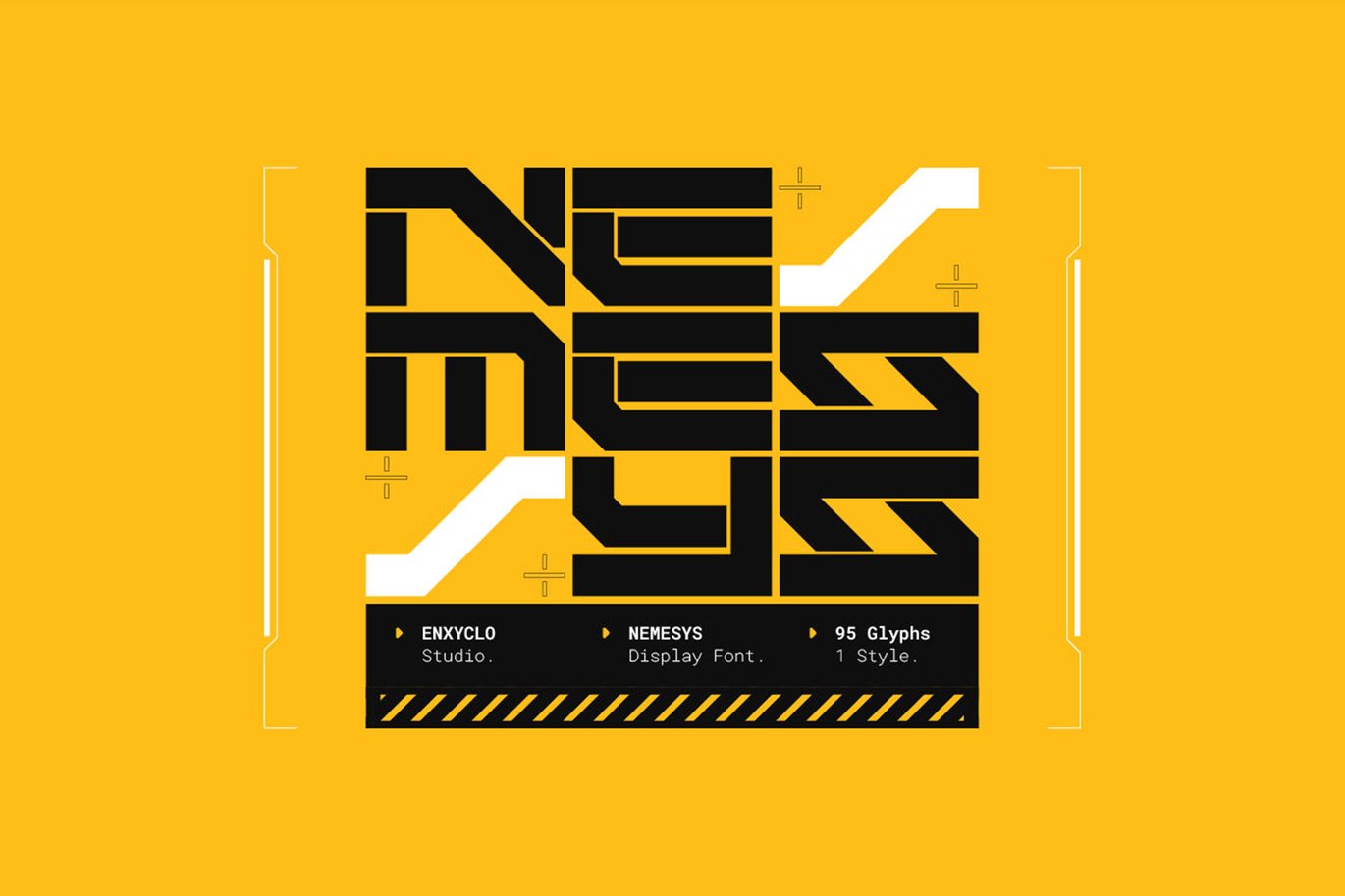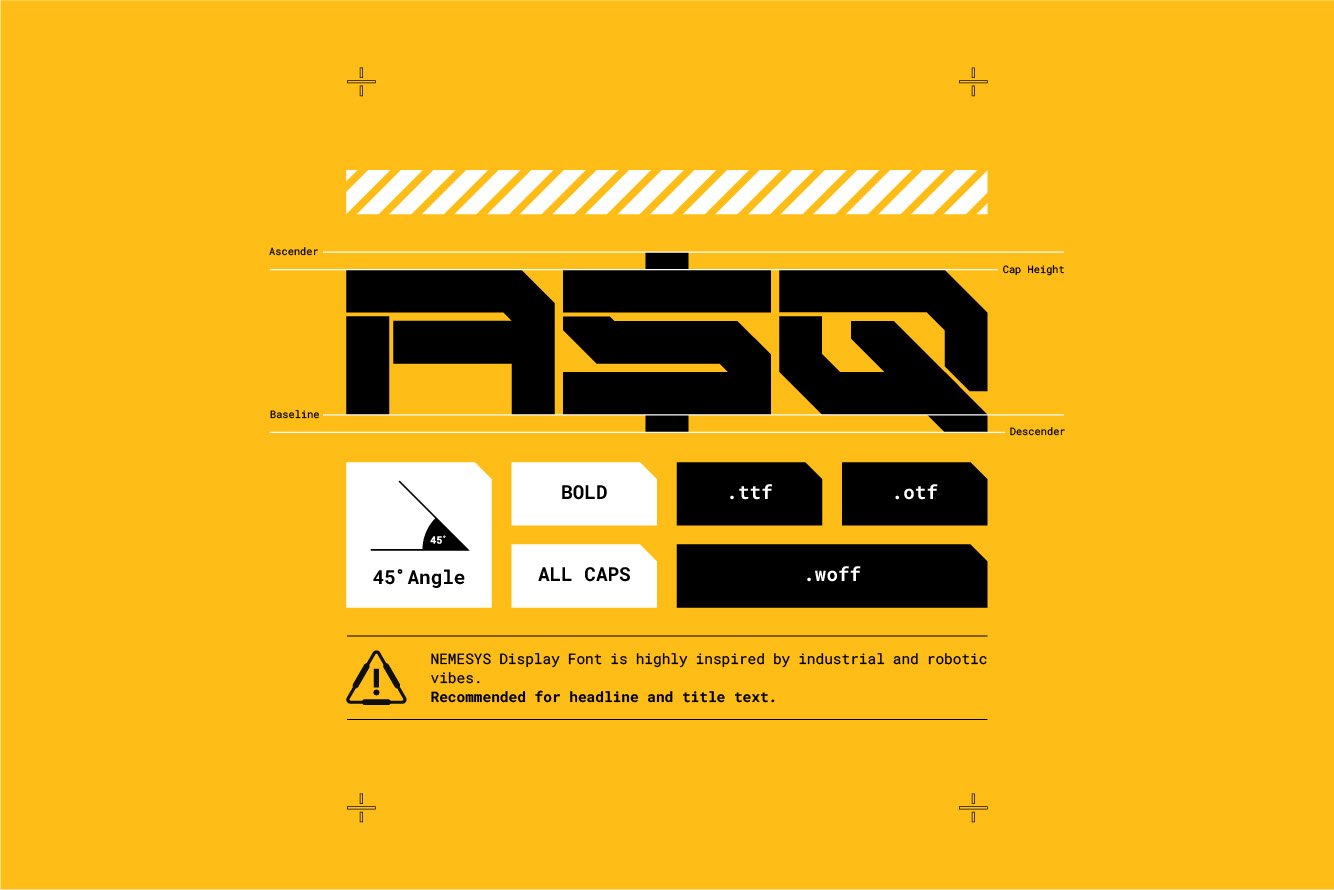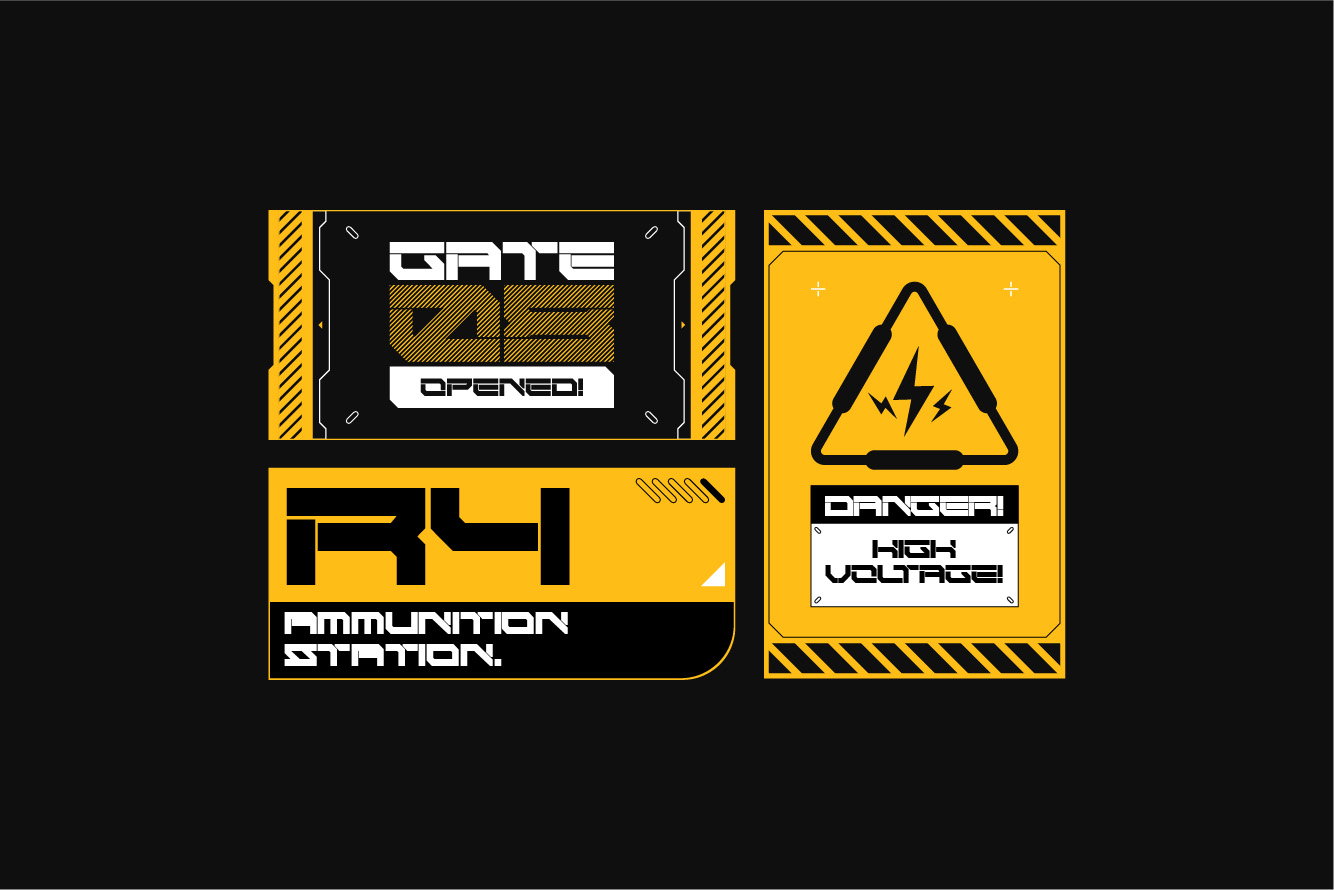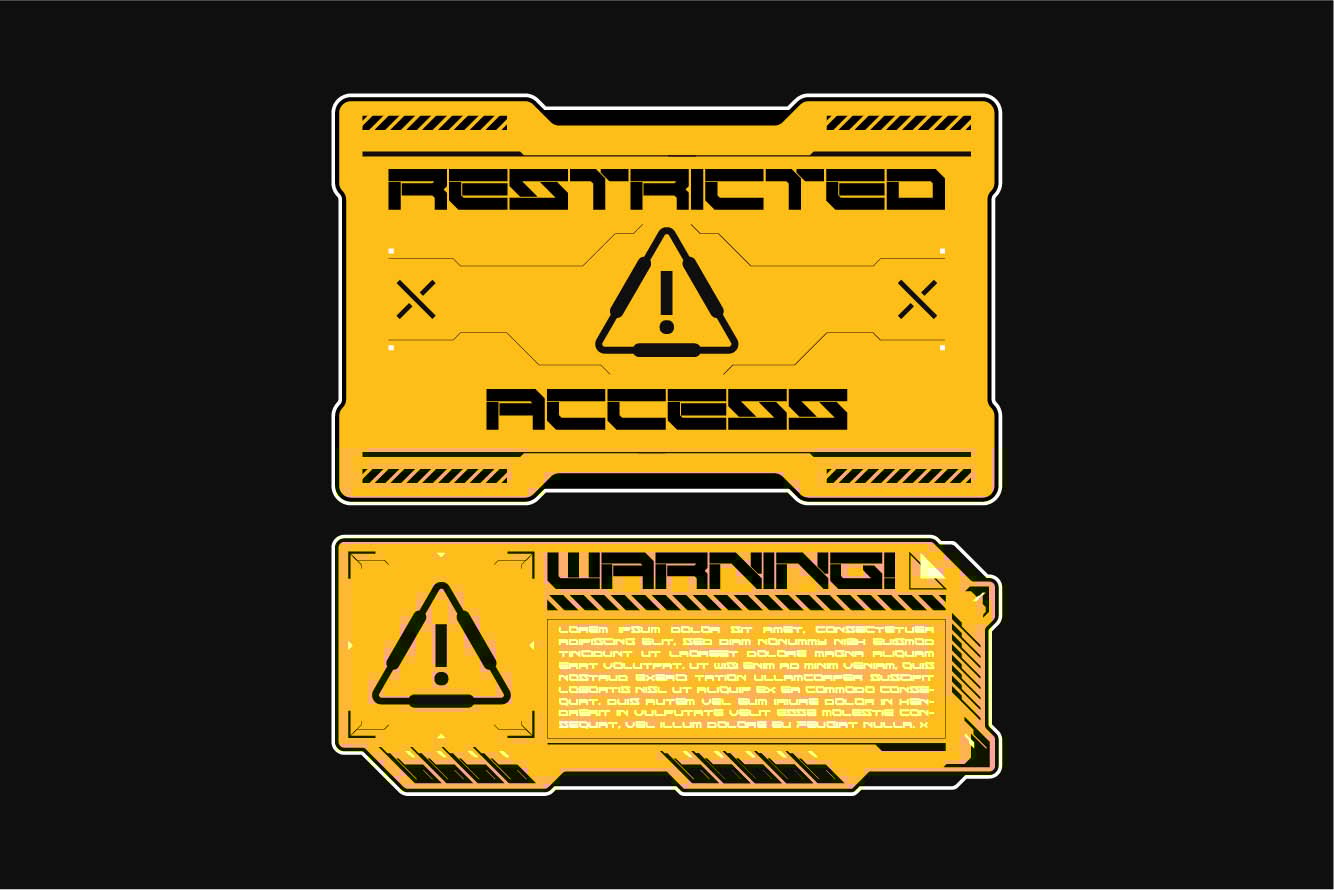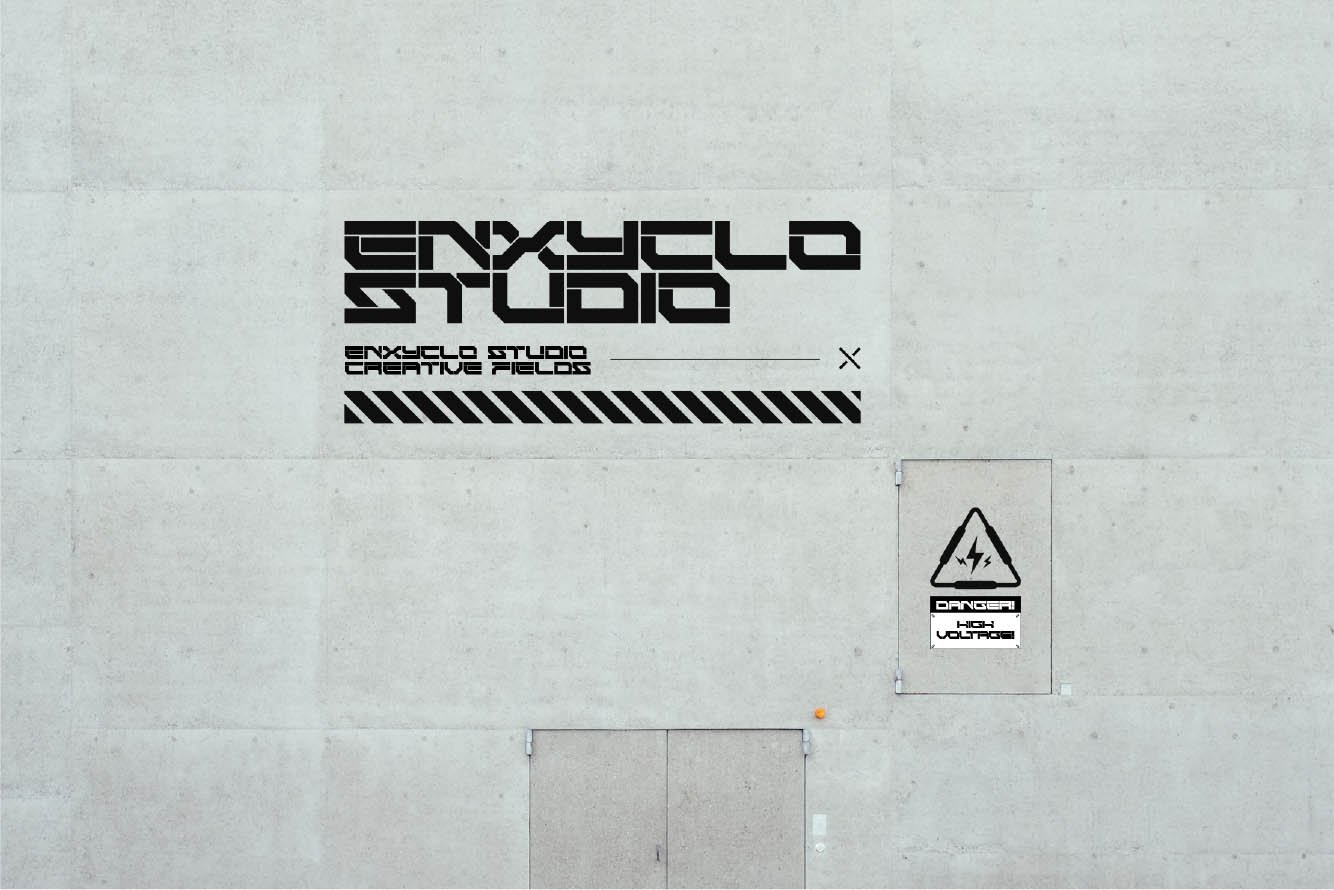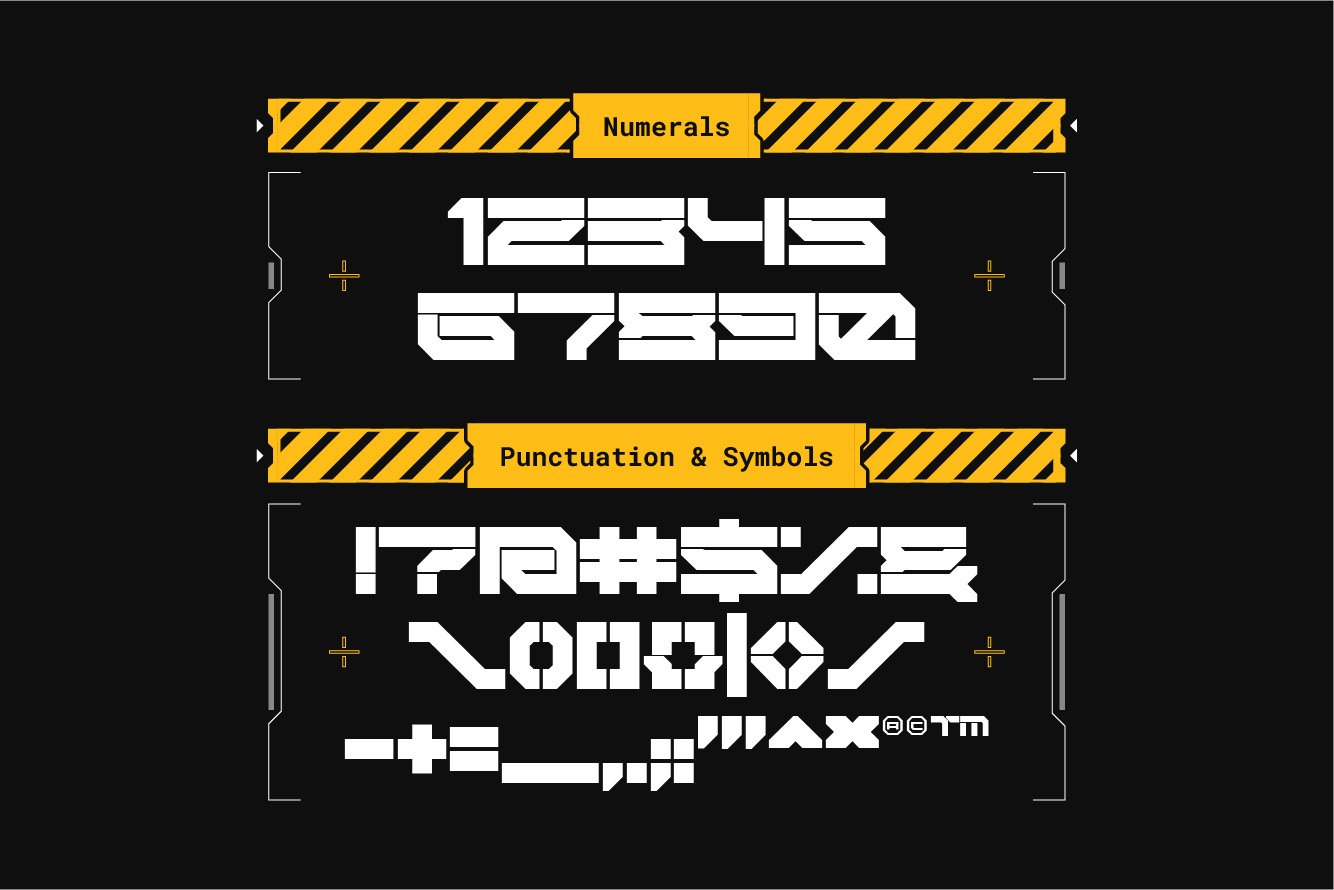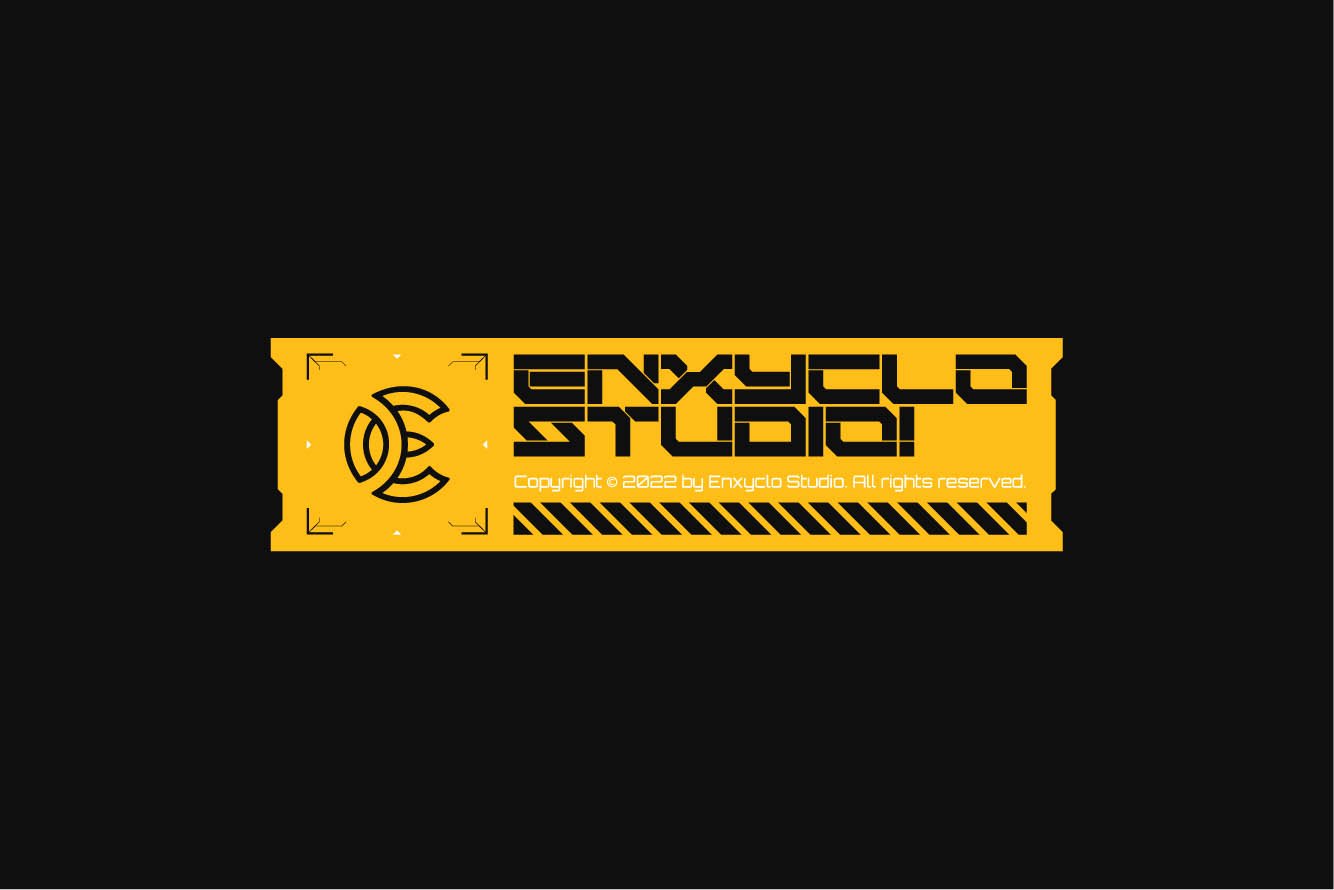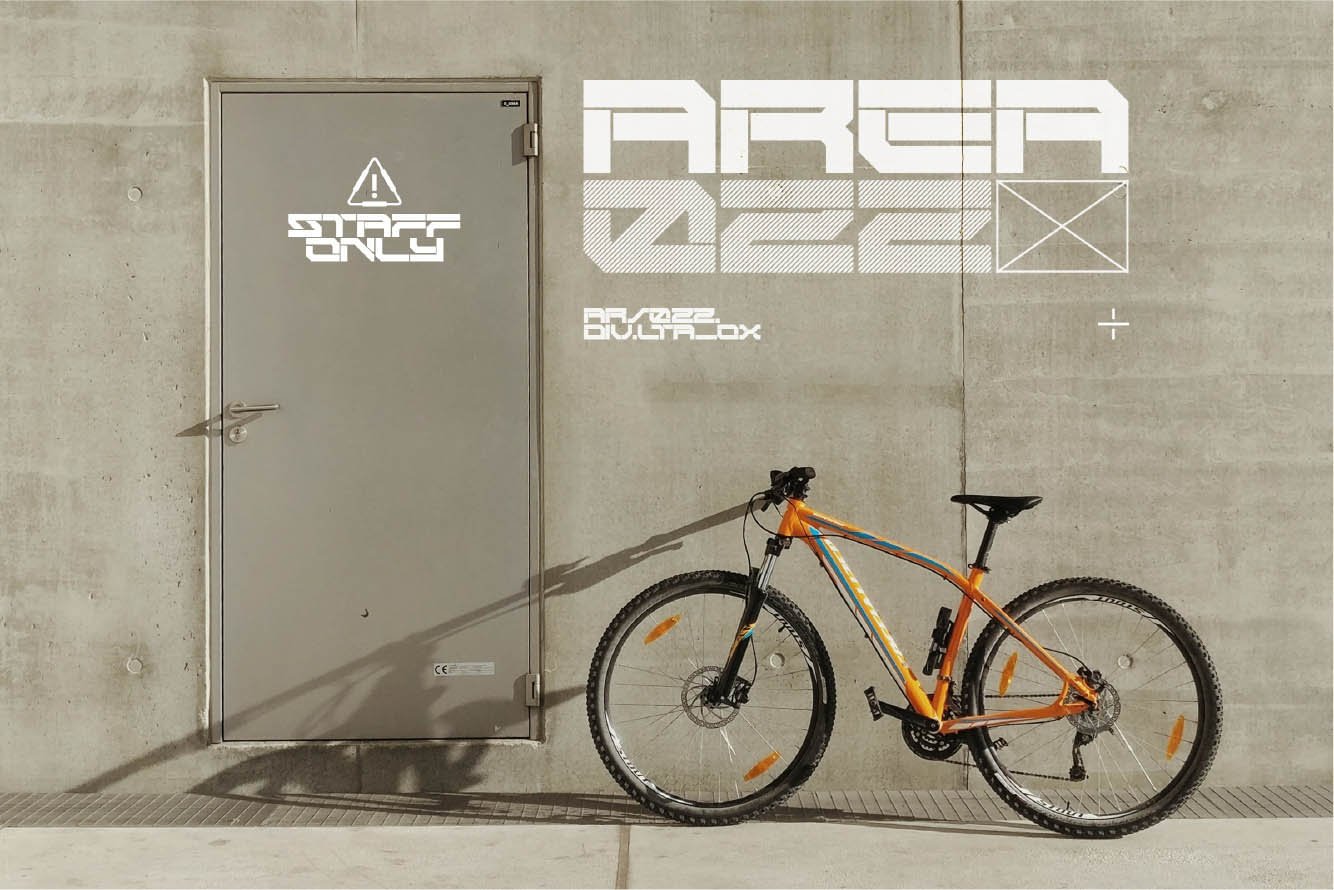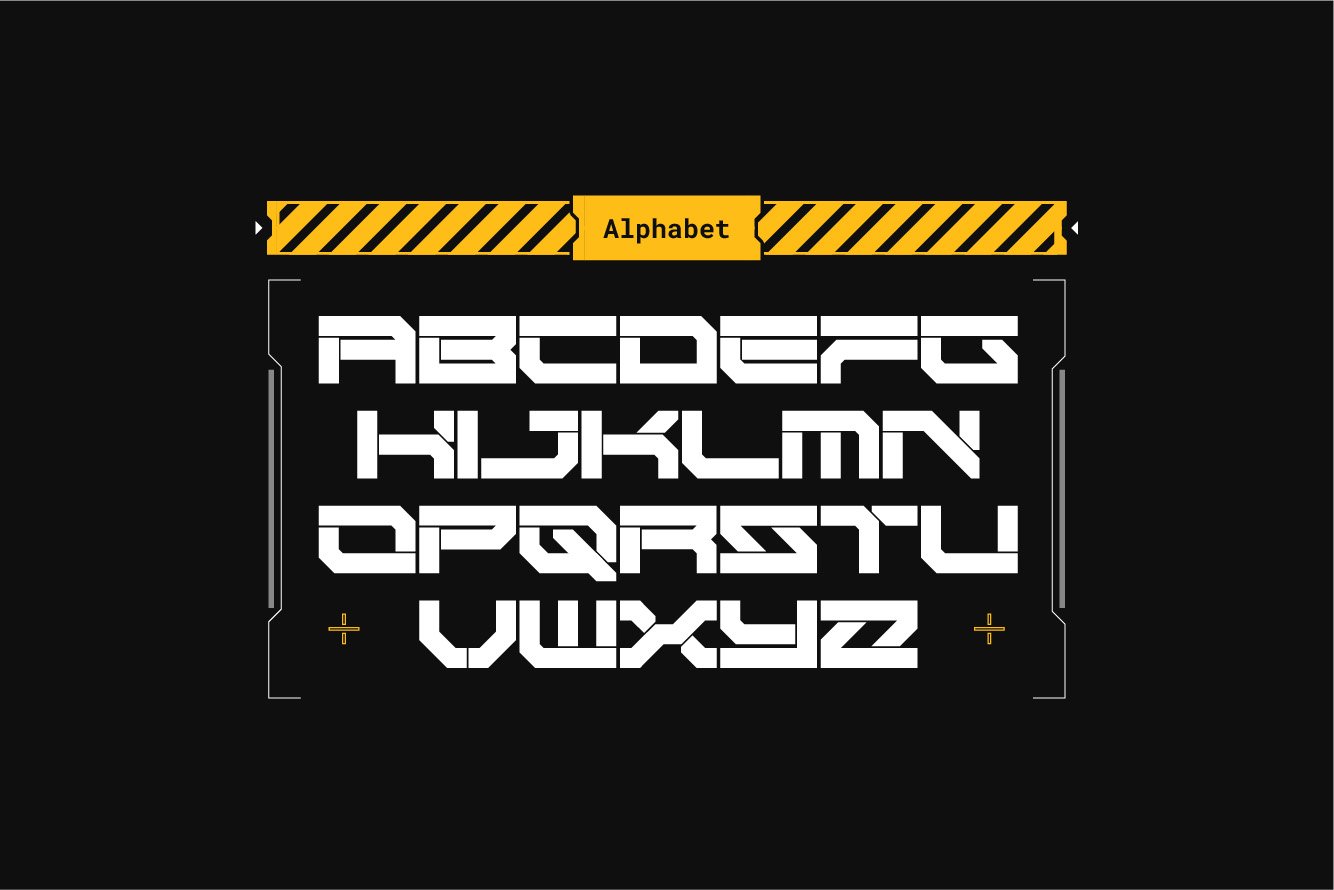
NEMESYS – Futuristic Cyberpunk Font
NEMESYS is futuristic display font. Highly inspired by industrial and robotic vibes. The design of typeface will make your project more powerful and inspiring. With this beautiful futuristic display font, absolutely you can make your project stand out from the rest. See the previews above to get some inspiration on how to use them.
- Uppercase, Numeral, Punctuation & Symbol